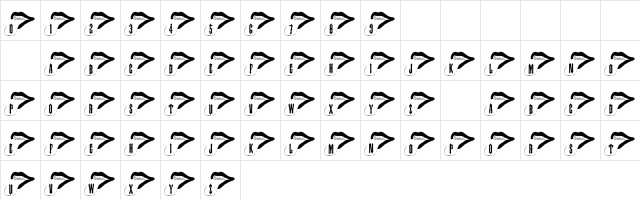
101! Kat Getz Pierced Regular Free Font
101! Kat Getz Pierced Regular
Design Context for 101! Kat Getz Pierced
101! Kat Getz Pierced is a composed and adaptable typeface that performs quietly and consistently across a wide range of design contexts.